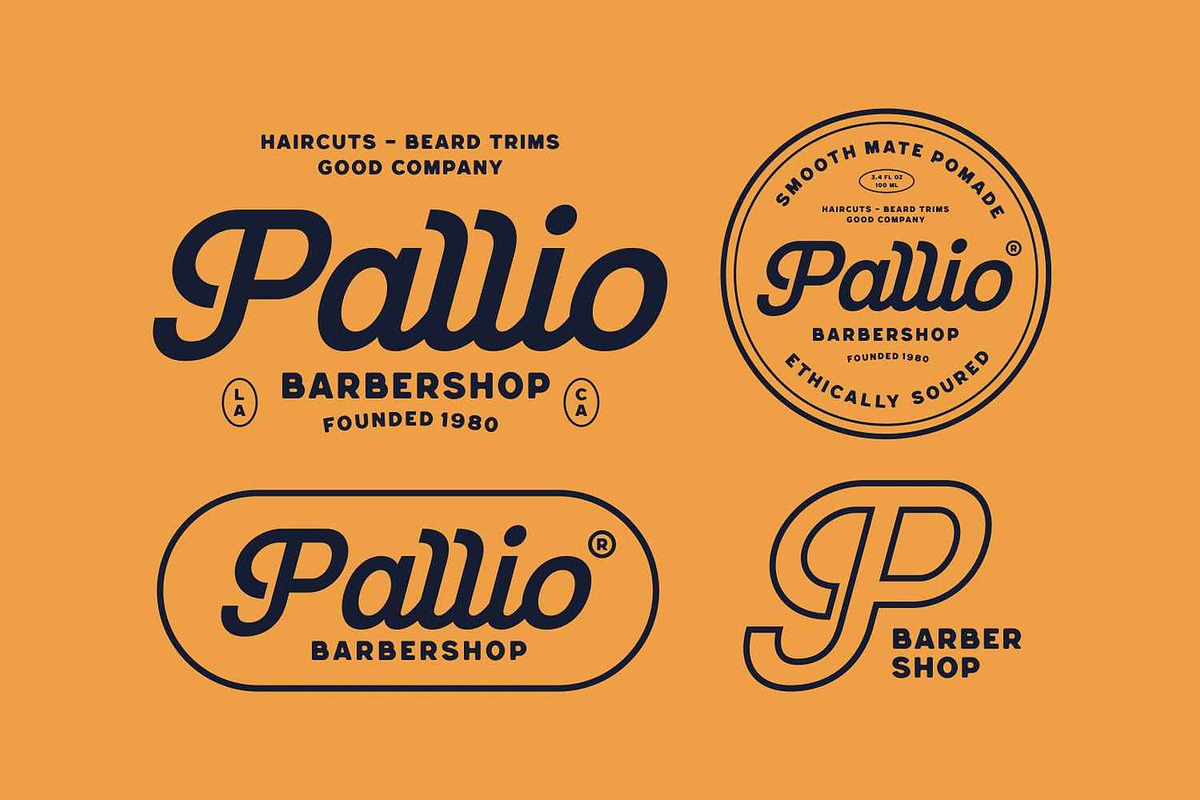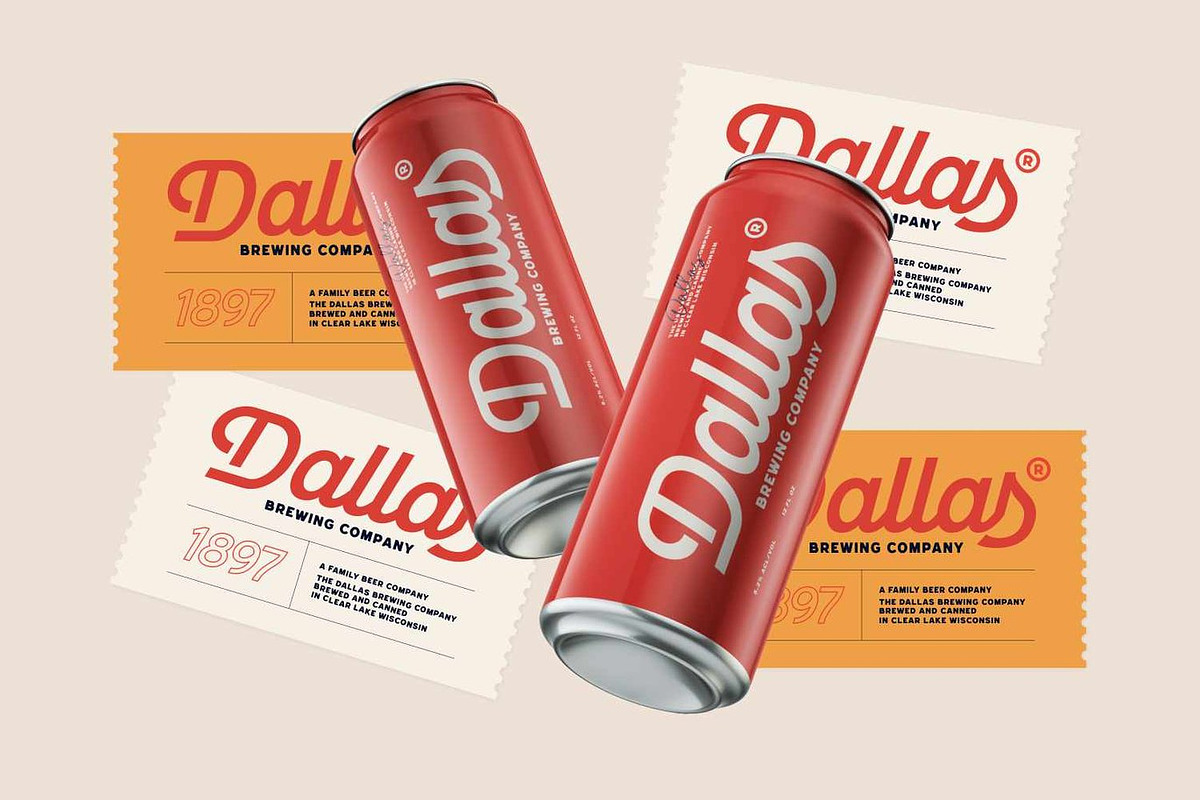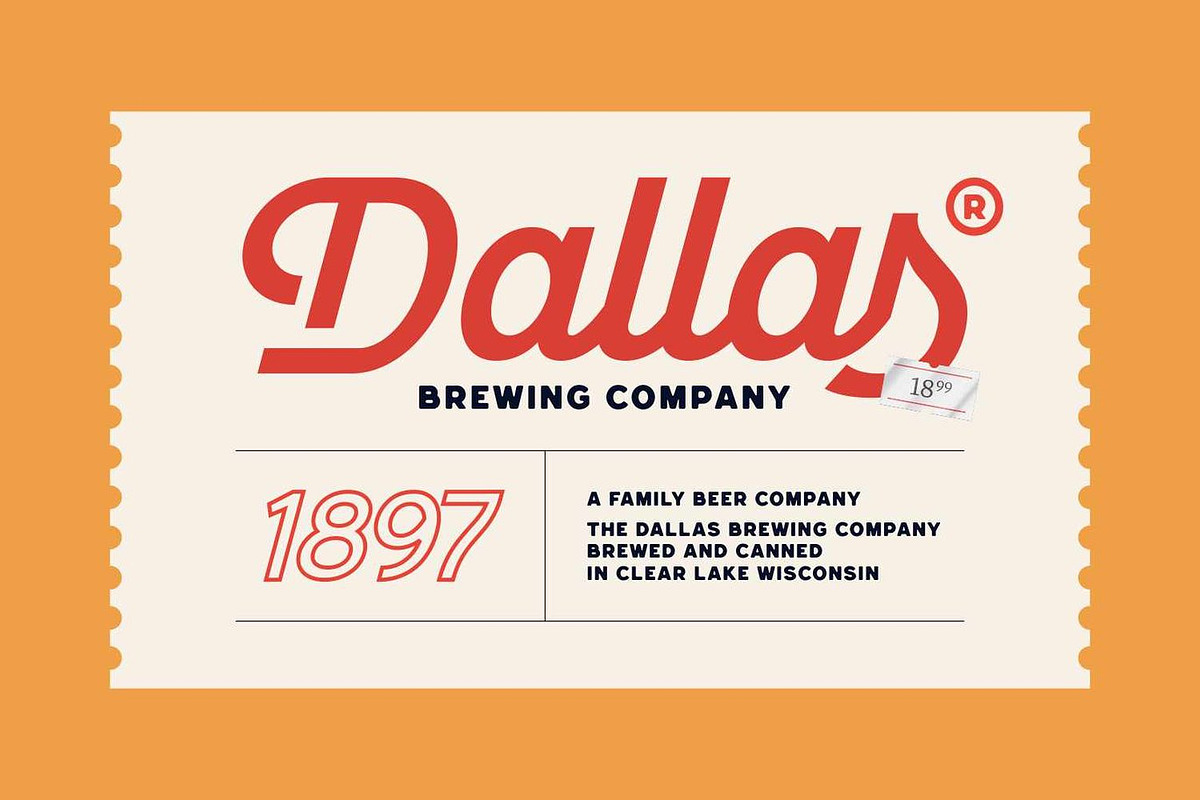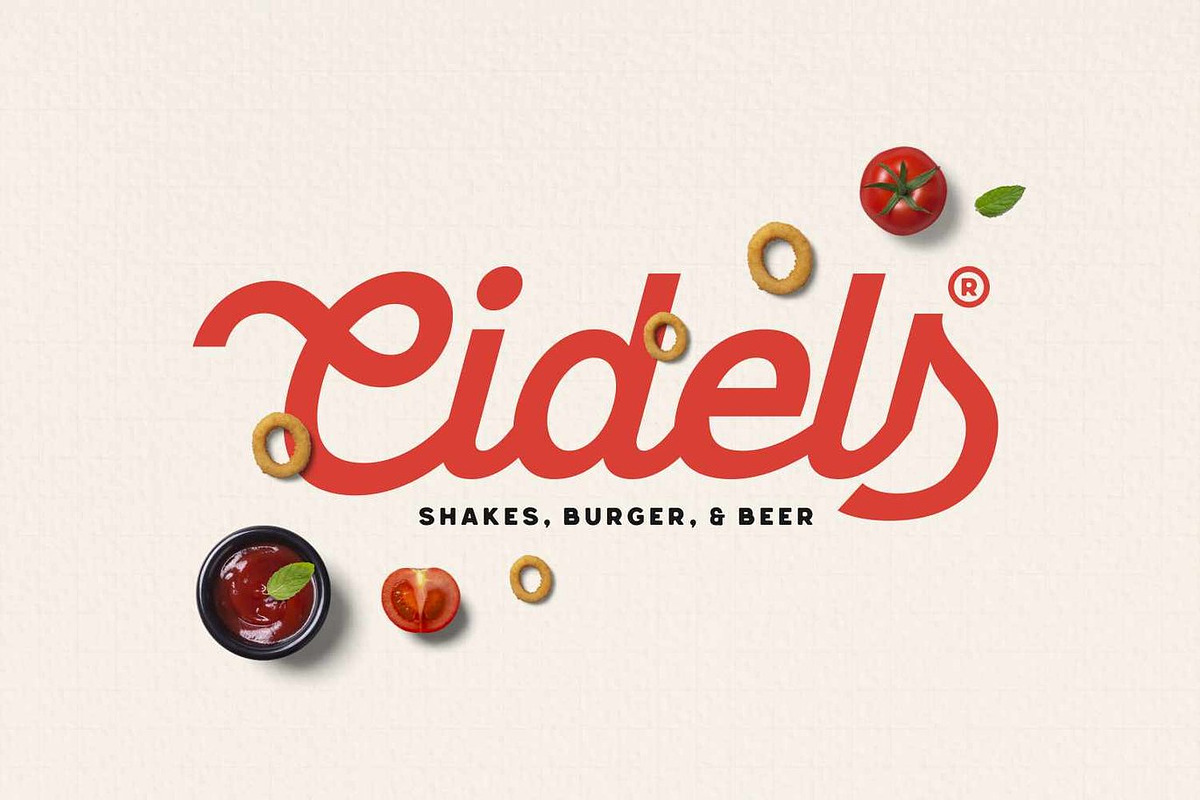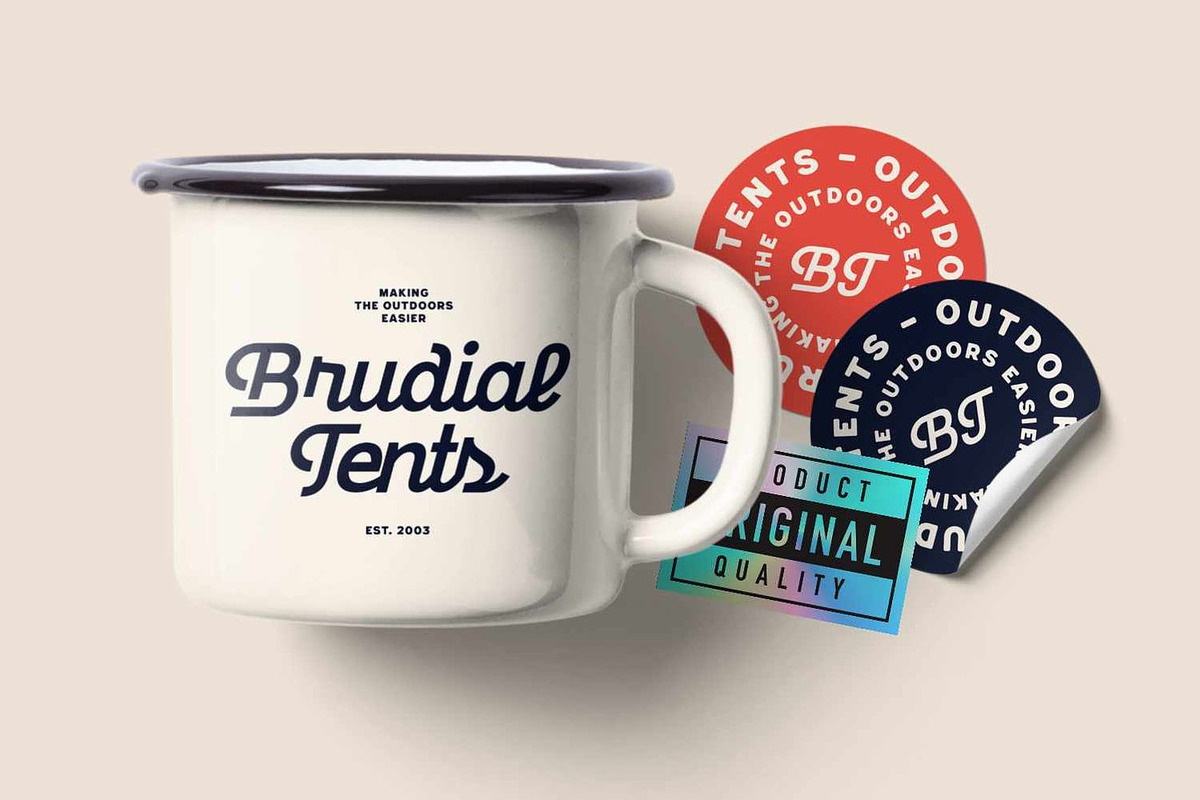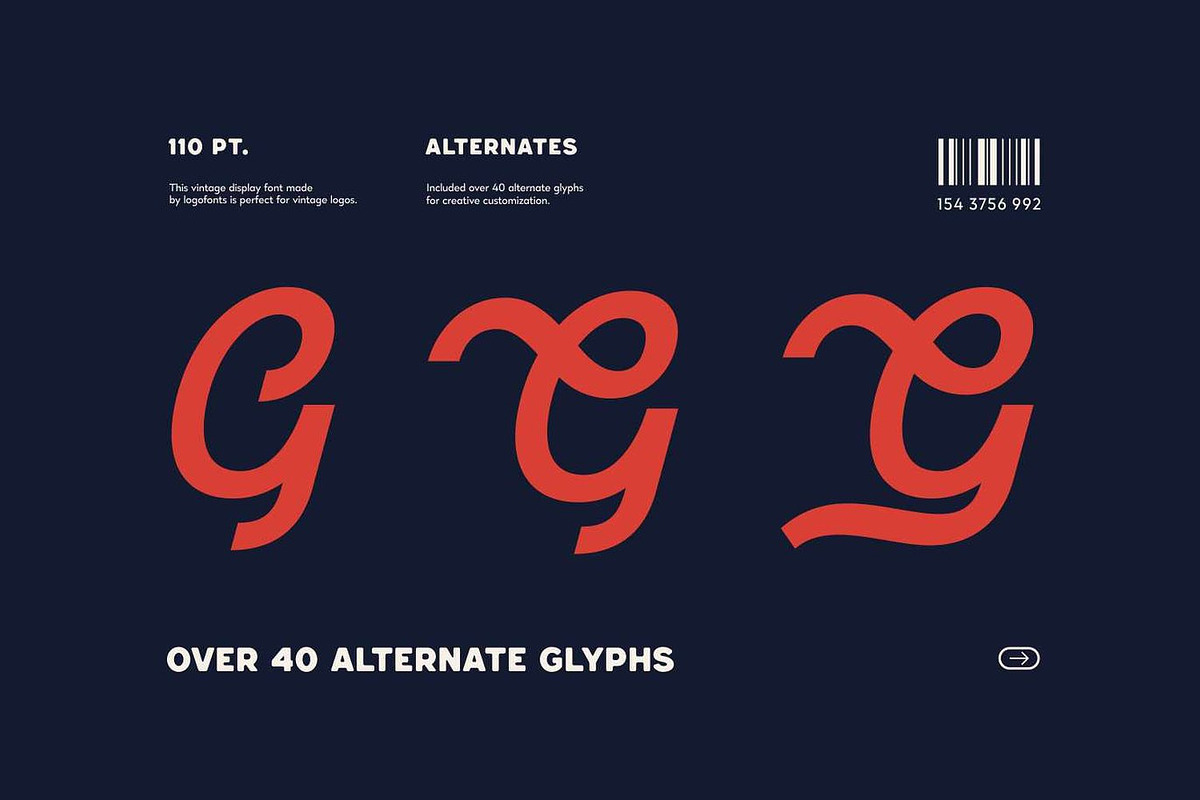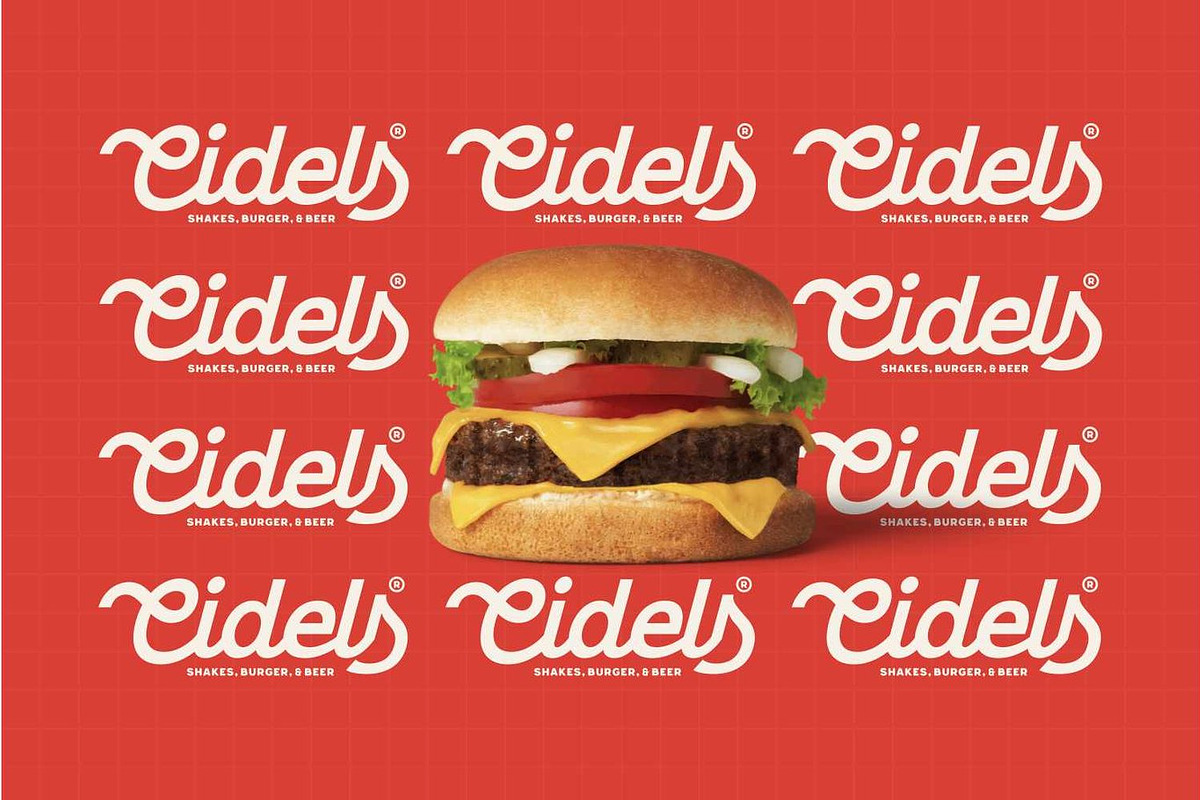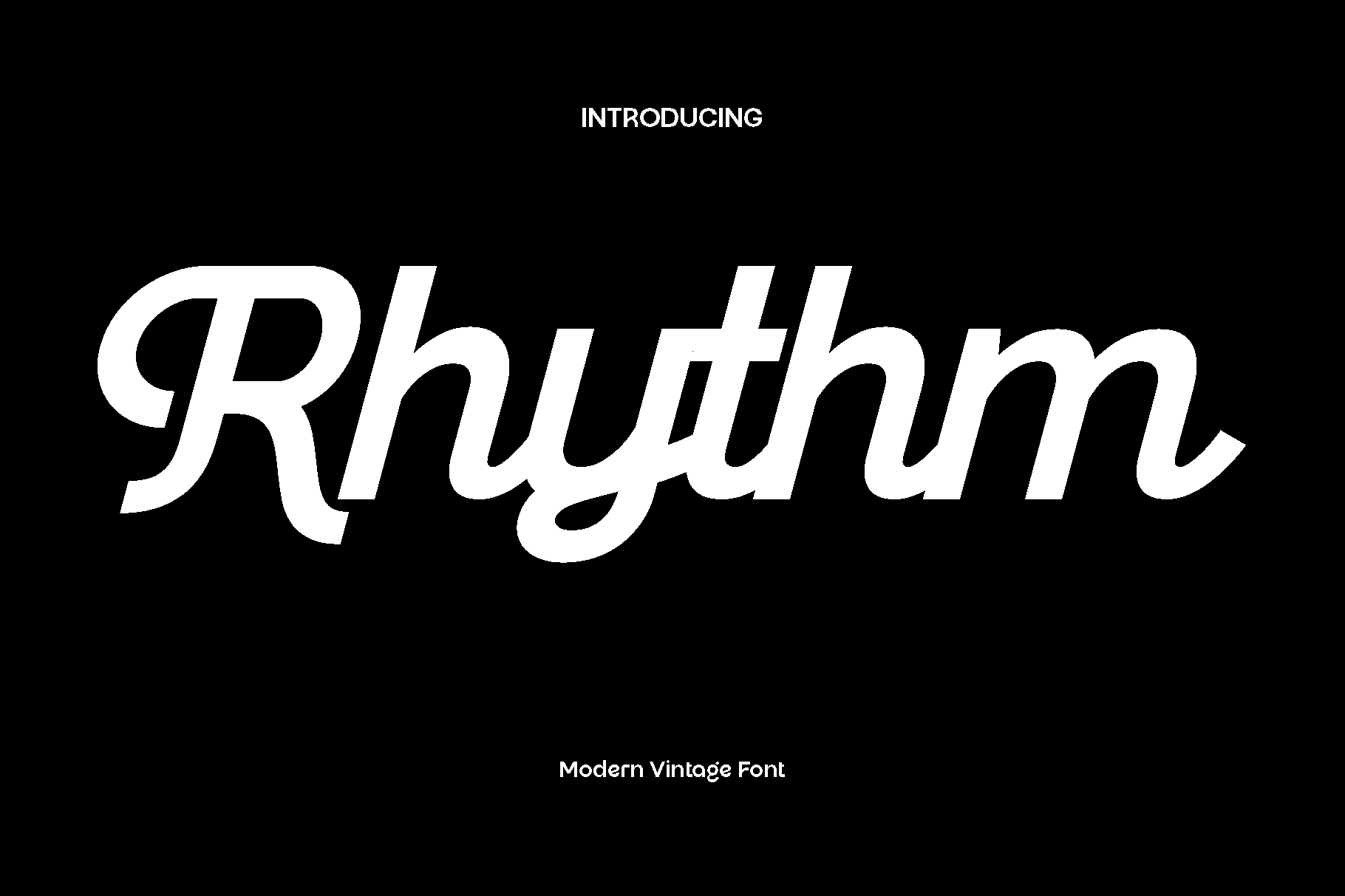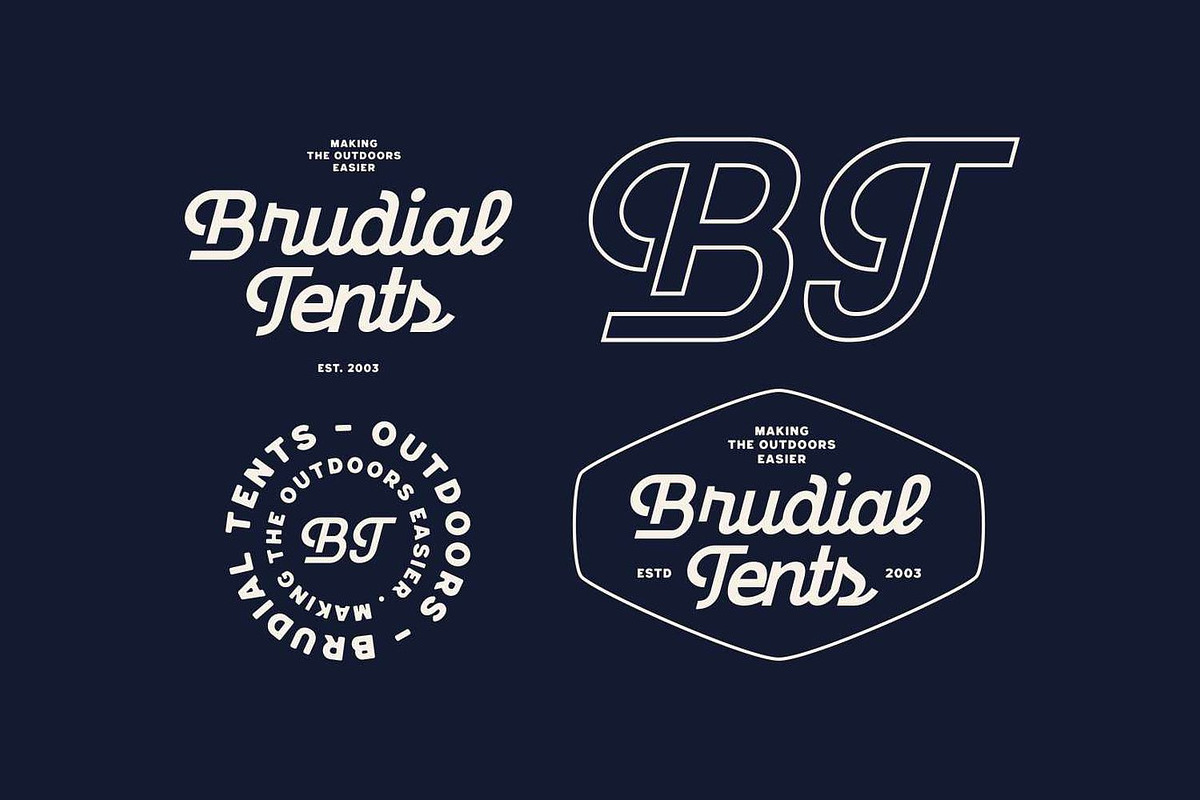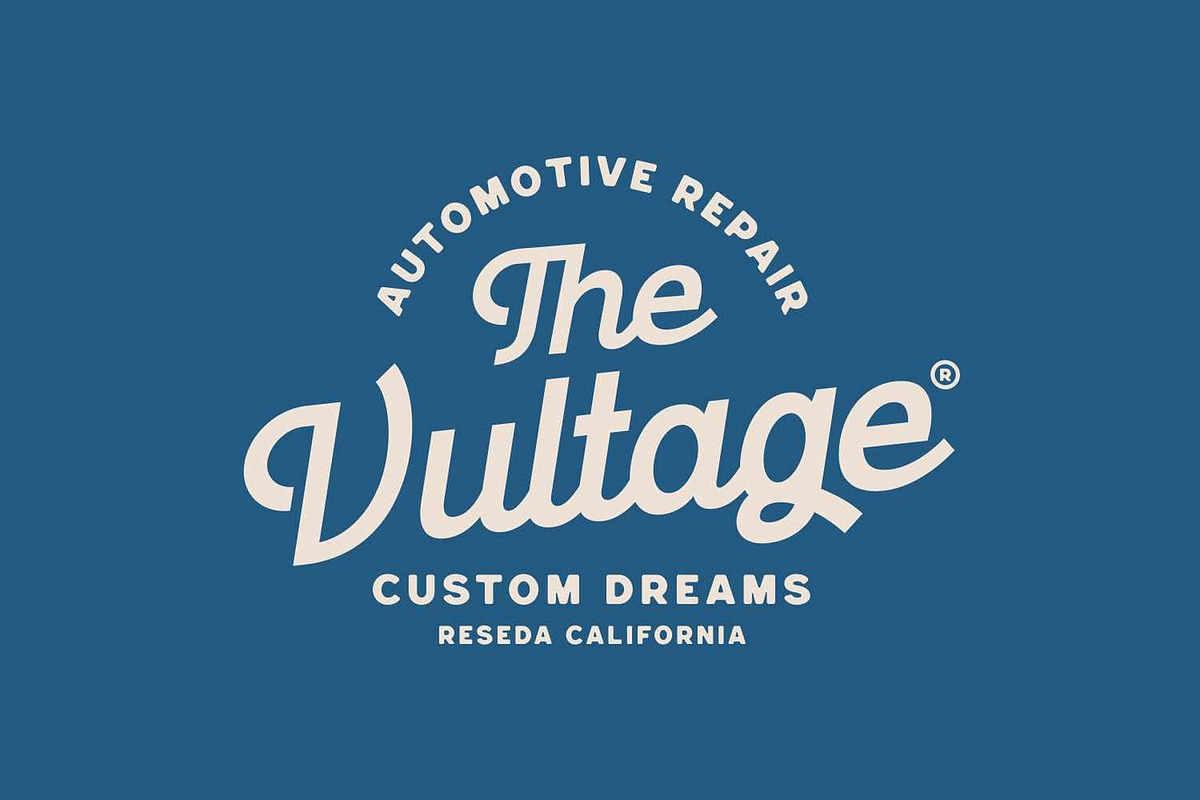
Rhythm - Vintage Script Font
Rhythm is a bold vintage script font inspired by the timeless lettering styles of the 1980s. Designed to capture the nostalgic charm of retro signage and hand-drawn scripts, Rhythm blends classic appeal with a stronger, more contemporary edge — perfect for modern projects that crave a touch of vintage personality.
This typeface is ideal for logos, posters, apparel design, product packaging, magazine titles, headlines, and branding projects. Its bold, flowing letterforms bring energy and style to any composition, while maintaining readability and impact.
With OpenType features including alternates and ligatures, Rhythm gives you the flexibility to create unique, handcrafted typography effortlessly. Customize your lettering to achieve an authentic retro look that feels both bold and elegant.
- Uppercase & Lowercase Letters
- Symbols & Punctuation
- Alternates & Ligatures (OpenType)
- Product Logos & Branding
- Vintage Posters & Signage
- Apparel & T-shirt Design
- Retro Packaging & Labels
- Magazines & Editorials
✨ Rhythm brings the spirit of the 1980s into your modern designs — a perfect blend of bold vintage charm and modern craftsmanship that adds personality and flair to every project.